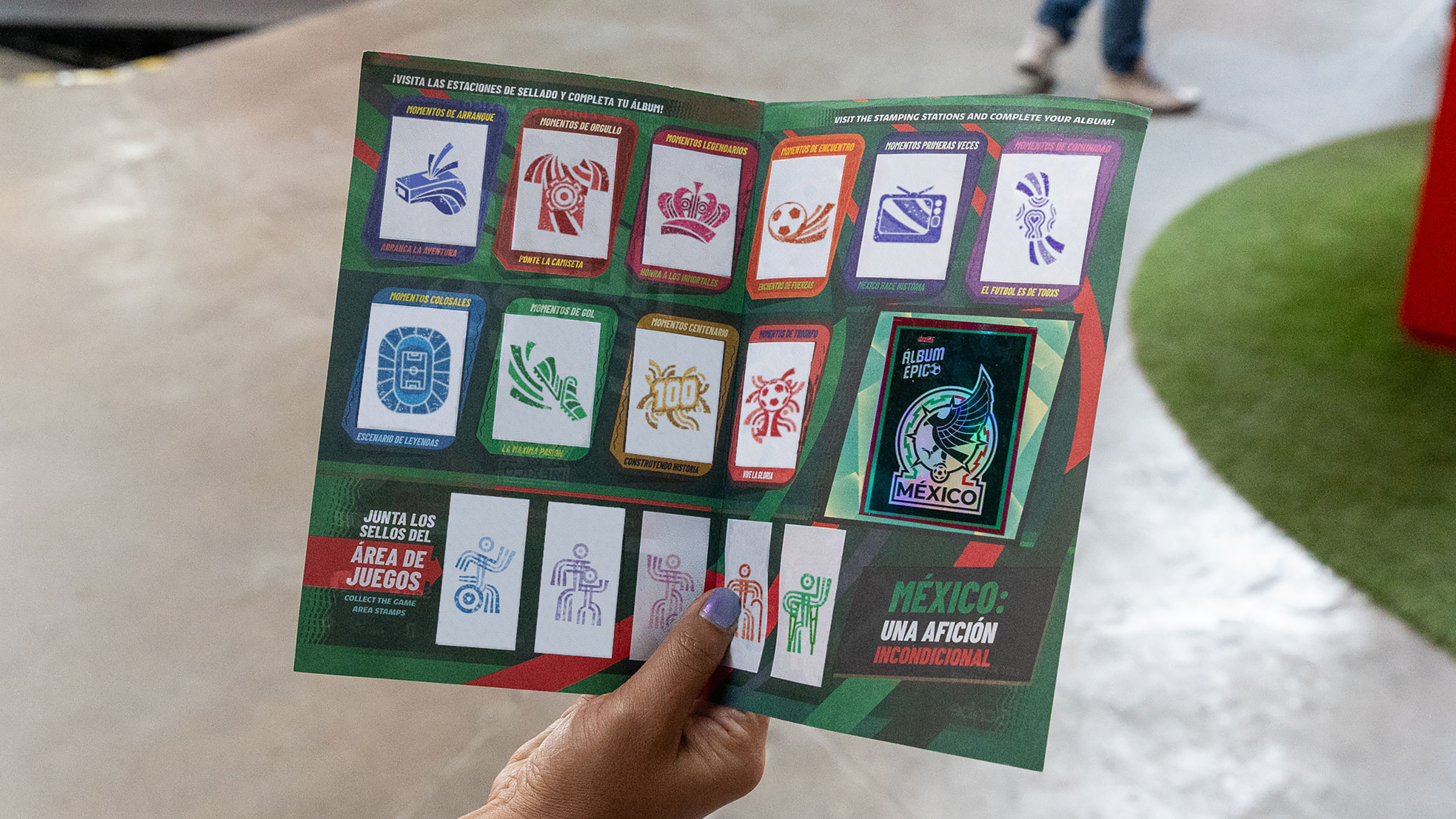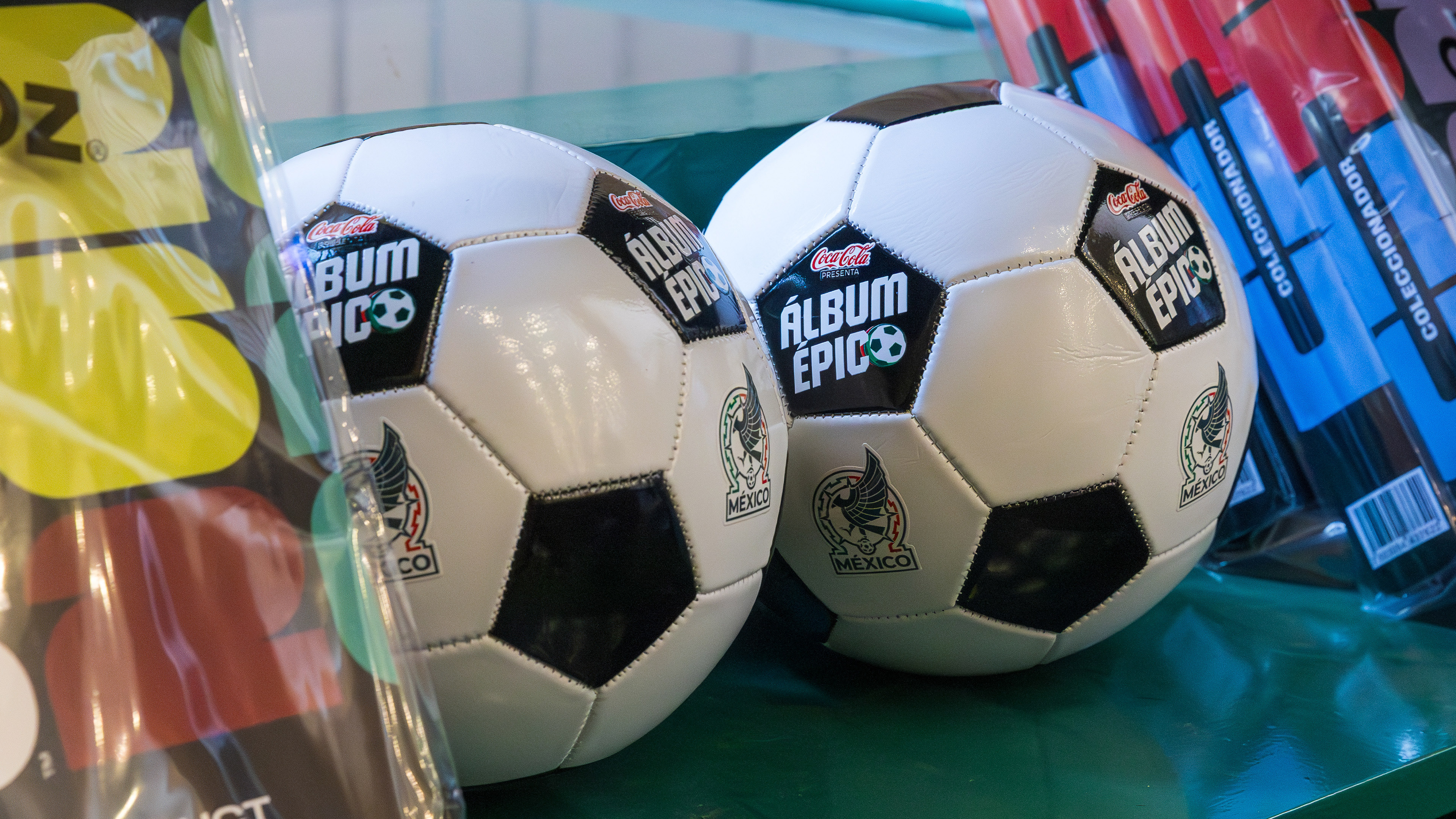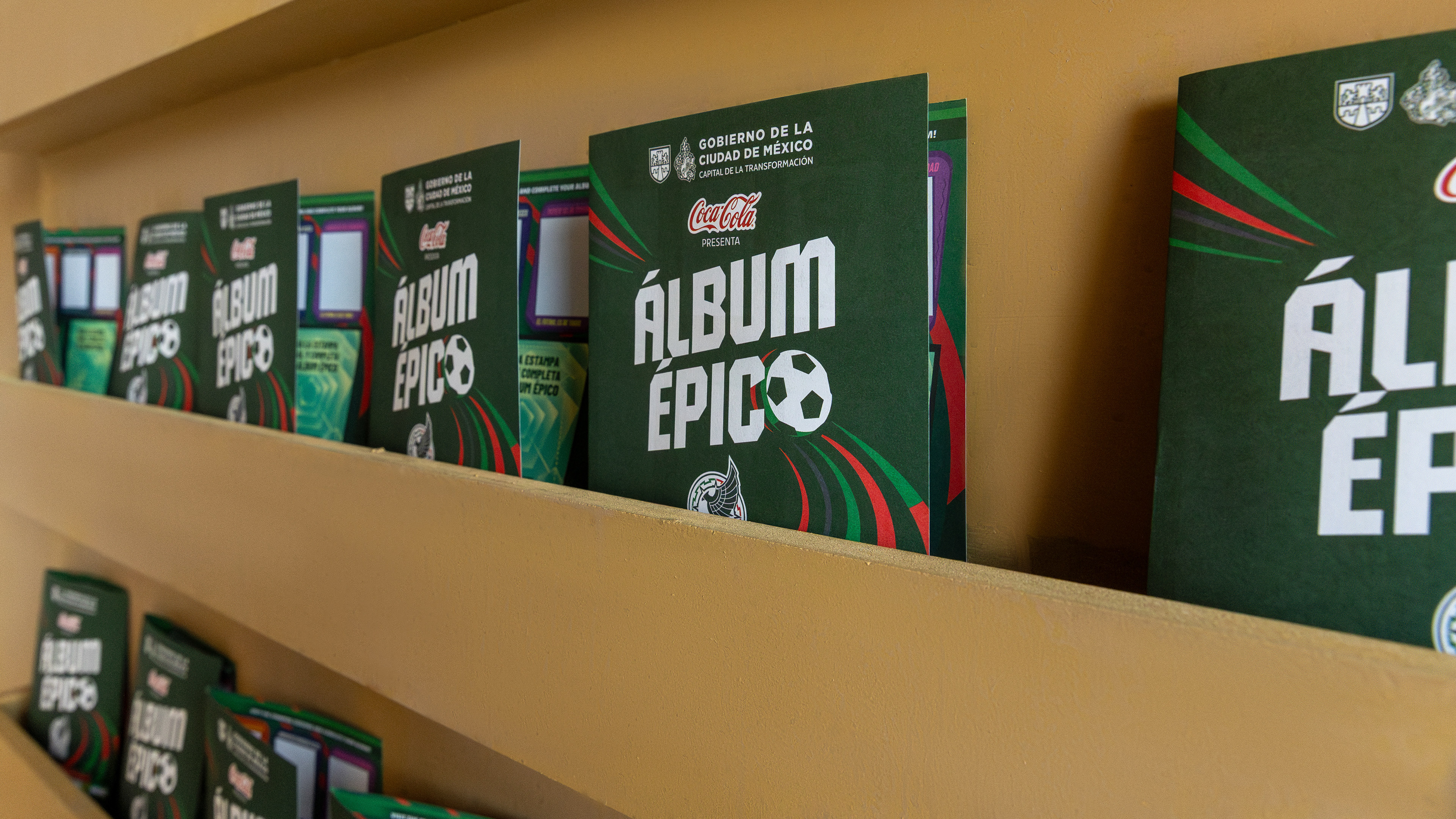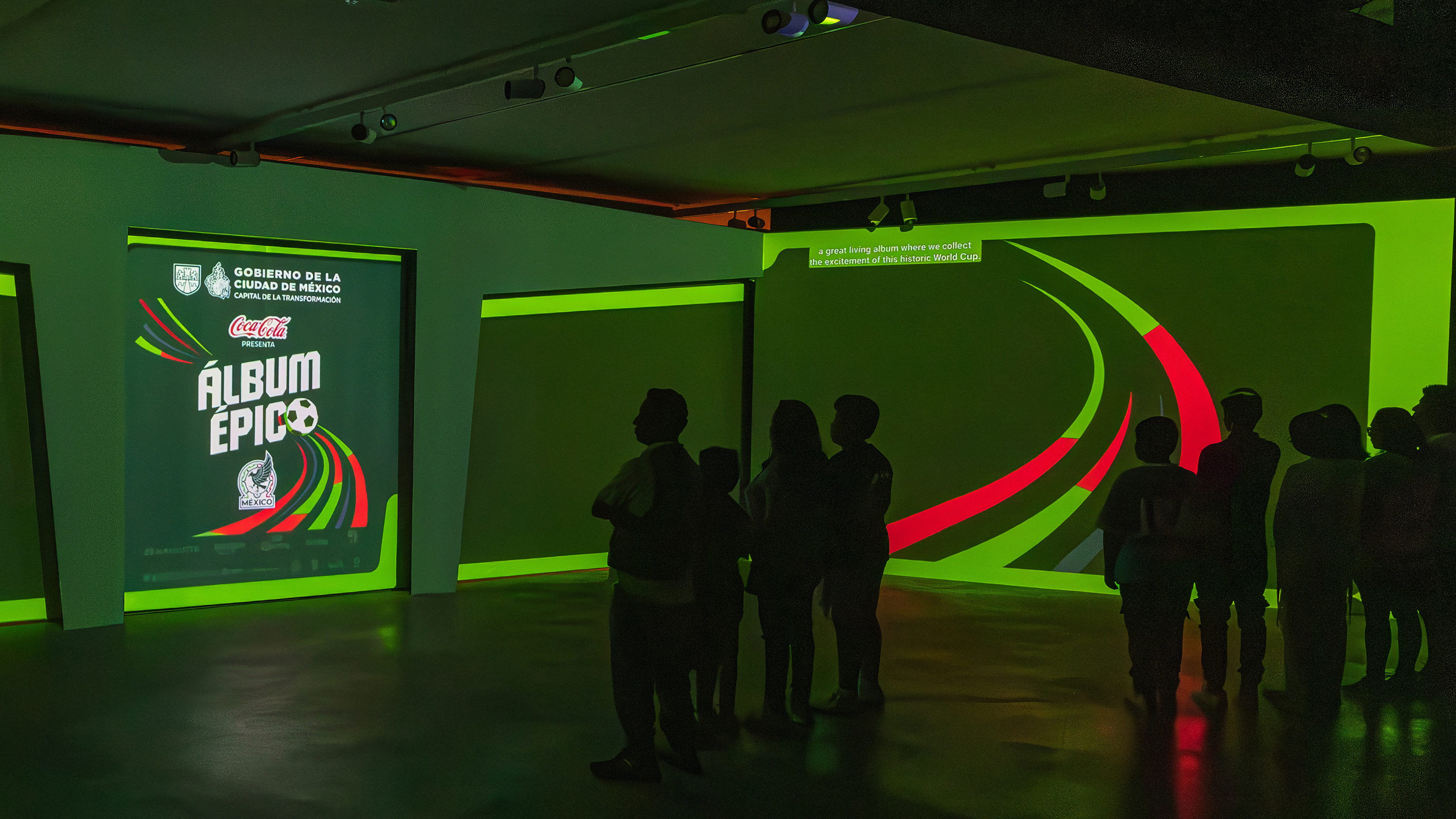
We were part of the team that designed the visual identity for Álbum Épico, a free World Cup exhibition spanning the three floors of Museo Yancuic in Iztapalapa, CDMX, for Cocolab MX.
This project was especially meaningful because, as Mexico City makes history hosting World Cup matches for a third time, global tournaments can often become inaccessible to the people who live in host cities. Álbum Épico makes Latin America’s largest fútbol memorabilia collections freely accessible at Museo Yancuic, a cultural space created to expand access to art across the city. Open to everyone, the exhibition features over 15,000 historic pieces, including legendary jerseys from Jorge Camps, Maradona, and Pelé.
Cocolab led the exhibition’s experiential design and interactive galleries in collaboration with Gobierno de la Ciudad de México and the Selección Nacional de México. Ancho was brought on to create a visual identity system that could scale across the museum's physical space, digital applications, and merch.
At the center of the identity is the trajectory of the ball. Sweeping lines guides viewers across the experience, forming a flexible graphic system that carries across the museum, digital applications, and merch. The custom-drawn wordmark comes from our study of historic jersey numerals in the collection, with slanted crossbars that nod to the current Selección Mexicana kit.